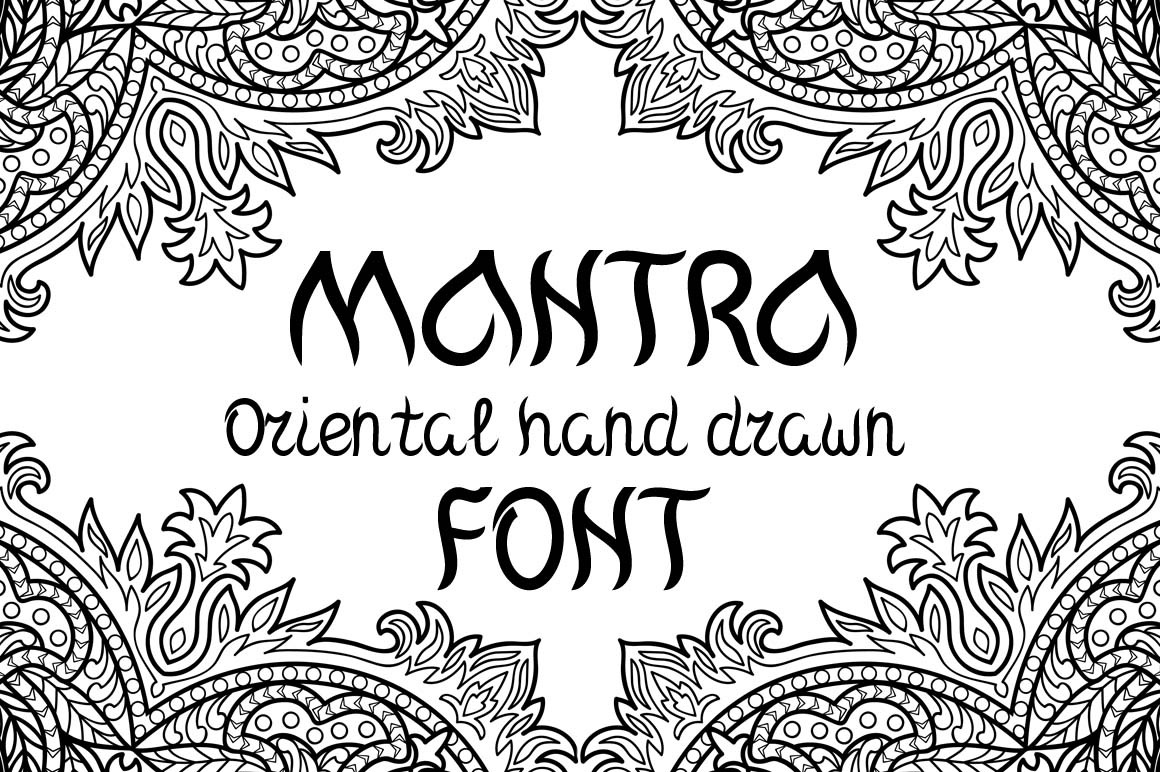
Mantra Font
Hand drawn font Mantra, inspired by the writing of Om mantra.
The font has an Oriental character, also, its smooth curves are reminiscent of natural elements.